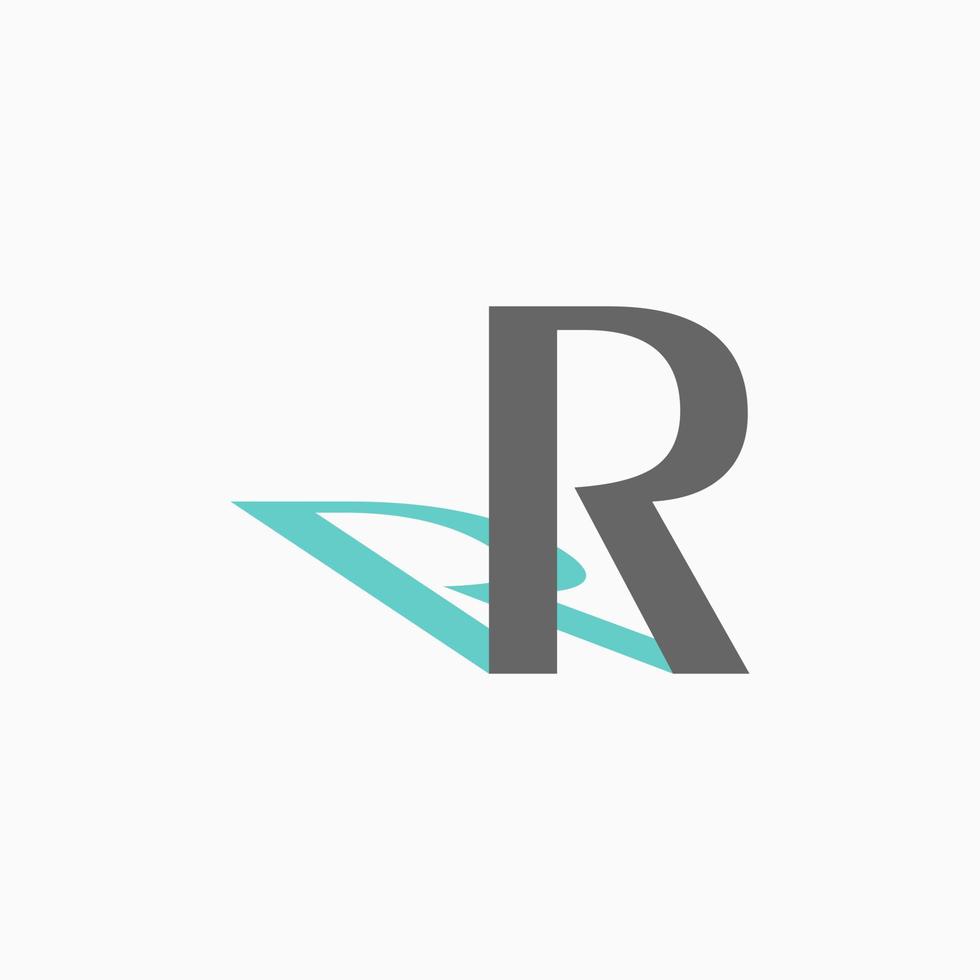
Logo design graphic concept creative abstract premium free vector stock simple and unique letter or word R sans serif font with shadow behind. Related to initial typography or monogram Pro Vector